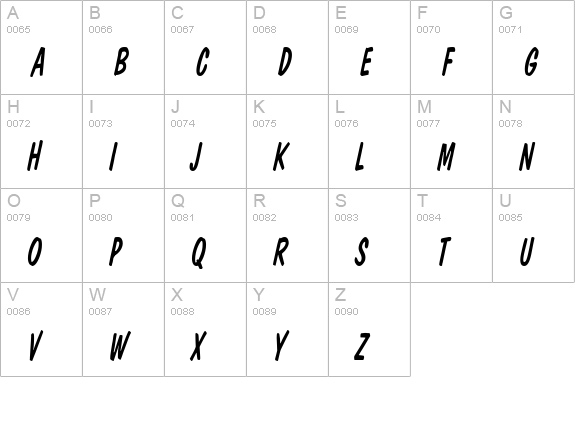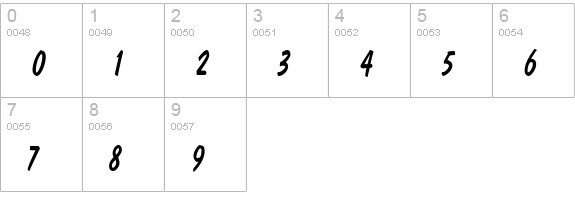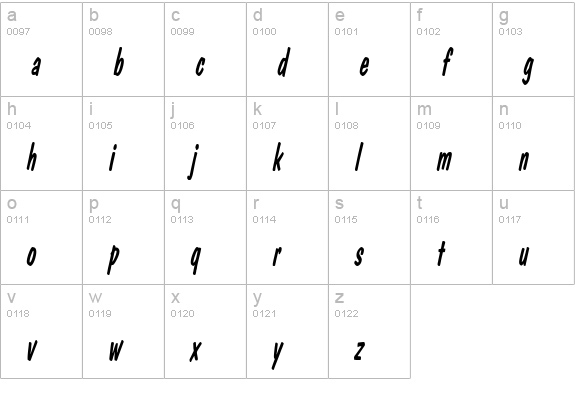
DonCasualCondensed Italic Font Details
DonCasualCondensed Italic is a distinctive, italic variant in the DonCasualCondensed typeface family \xE2\x80\x94 well suited to design and typography projects.
DonCasualCondensed Italic font is a stylish and modern typeface that exudes a casual yet refined vibe. Its italicized design adds a touch of elegance and sophistication to any project it is used in. The condensed form of the font makes it perfect for creating eye-catching headlines, titles, and captions that stand out. What makes DonCasualCondensed Italic font even more appealing is that it is available for free download at FontsMarket.com. This means you can easily add this versatile and attractive font to your collection without any cost. Whether you are a designer, blogger, or student looking to enhance your projects, DonCasualCondensed Italic font is a fantastic choice that won't break the bank. Download it today and elevate your designs with this beautiful typeface.